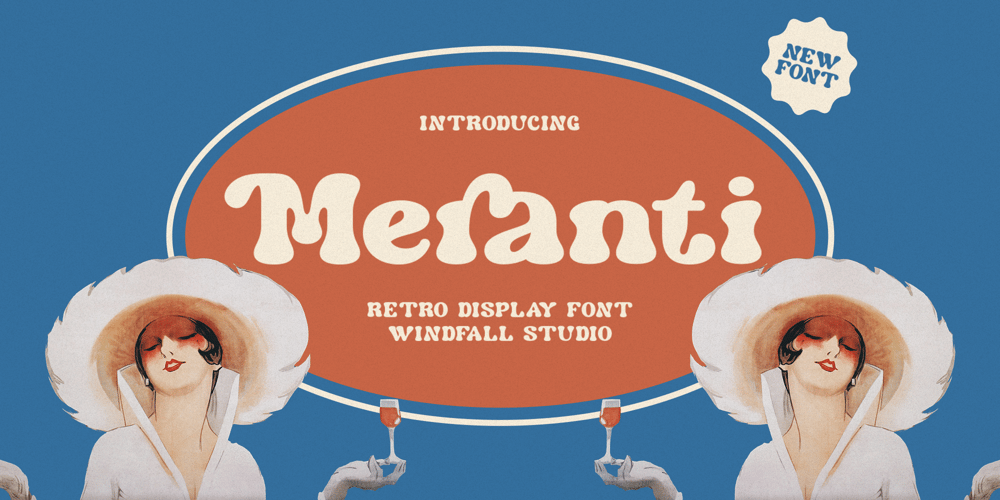
Meranti Font Family was designed by Anggia Putri Premitasari and published by Windfall Studio. Meranti contains 1 styles and family package options. Meranti – Modern Bold Retro TypefaceMeranti is a contemporary yet bold retro typeface that seamlessly blends modern boldness with nostalgic retro vibes. With its strong lines and retro-inspired details, this font exudes a powerful and charismatic presence in any design. Perfect for branding, logos, posters, headlines, and more, Meranti injects a bold retro flair into your projects.Embrace its dynamic energy and elevate your designs with Meranti.